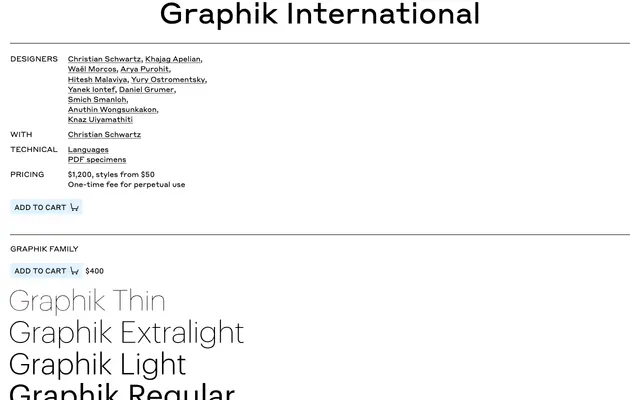
Graphik International
Commercial Type · Christian Schwartz, Khajag Apelian, Wael Morcos, Arya Purohit, Hitesh Malaviya, Yury Ostromentsky, Yanek Iontef, Daniel Grumer, Smich Smanloh, Knaz Uiyamathiti, Anuthin Wongsunkakon · 2022
sans-serifneo-grotesque (multi-script)italic
Graphik International specimen from Commercial Type
The umbrella Graphik pack, gathering every script adaptation into one global-brand system across Latin, Arabic, Armenian, Bangla, Devanagari, Georgian, Hebrew, Tamil and Thai.
The global edition of Graphik, bundling every script companion into one system: Latin, Arabic, Armenian, Bangla, Devanagari, Georgian, Hebrew, Tamil and two Thai cuts, a loopless modern style and a traditional looped style. Each cut was designed by a script specialist working from Christian Schwartz's original vanilla concept, with nine weights from Thin to Super and matching italics where each script allows. Useful where a single brand or publisher needs a consistent voice across the bulk of the world's reading population.
Commercial Type frame Graphik International as the umbrella pack collecting all script adaptations of Graphik, from Latin through Arabic, Armenian, Bangla, Devanagari, Georgian, Hebrew, Tamil and the two Thai cuts.